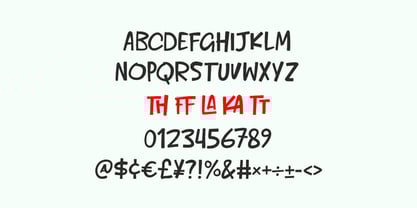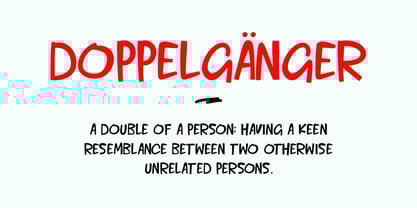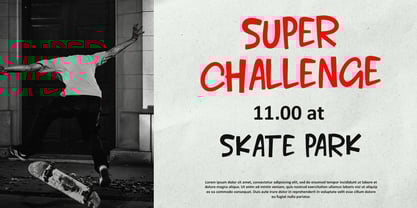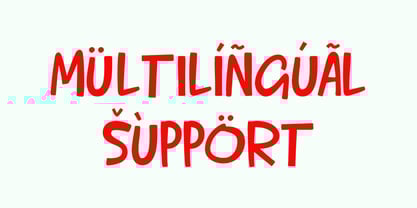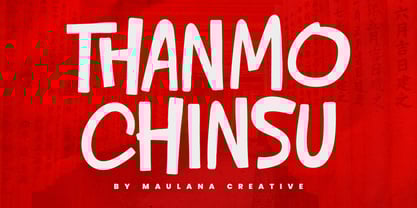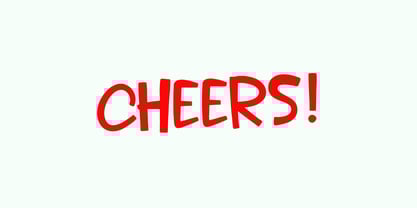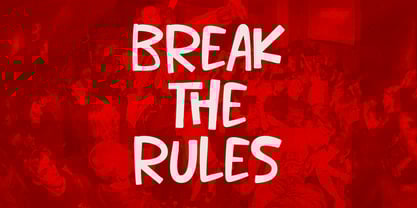
MC Thanmo Chinsu
by Maulana Creative
The MC Thanmo Chinsu Font Family was designed by Gilang Maulana and published by Maulana Creative. MC Thanmo Chinsu contains 1 styles.
Thanmo Chinsu is a cute handwritten display font. With bold stroke, fun character with a bit of ligatures. To give you an extra creative work. Thanmo Chinsu font support multilingual more than 100+ language. This font is good for logo design, Social media, Movie Titles, Books Titles, a short text even a long text letter and good for your secondary text font with sans or serif. Make a stunning work with Thanmo Chinsu font.